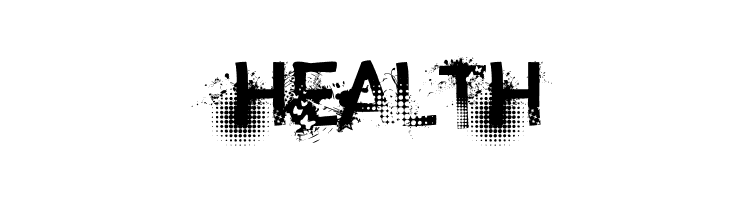
A bold, distressed slab serif font with a grunge texture.
A whimsical and decorative font with star-like bursts and circular embellishments.
A bold, angular font with a lightning-like, energetic design.
A bold, angular font with sharp, dynamic edges for a striking visual impact.